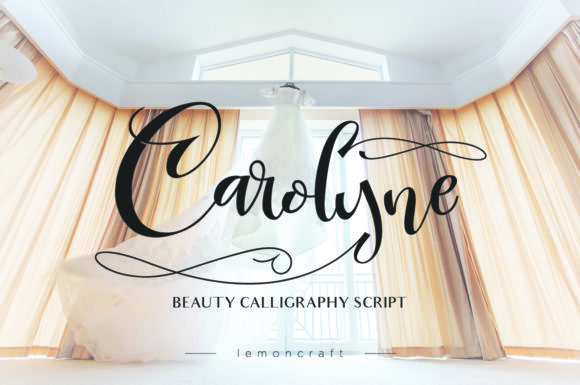
Discover the Elegance of Carolyne Font: A Smooth Handwritten Script for Your Designs
Are you a designer or crafter looking for a font that exudes elegance and femininity? Look no further than the Carolyne Font. This beautiful, smooth handwritten script is perfect for adding a touch of sophistication to your designs, whether you’re working on bridal and wedding projects, creating name cards, or crafting invitations.
The Characteristics of Carolyne Font
The Carolyne Font is a stunning example of a handwritten script font. Its smooth, flowing lines and elegant letterforms make it an ideal choice for designs that require a high level of sophistication. The font’s feminine style is perfect for projects that need a touch of whimsy and romance, such as wedding invitations, bridal shower decorations, and other celebratory designs.
Uses for Carolyne Font
The versatility of the Carolyne Font makes it suitable for a wide range of design projects. Here are just a few ideas to get you started:
- Bridal and Wedding Designs: Use the Carolyne Font to create beautiful wedding invitations, save-the-date cards, and other stationery for the big day.
- Name Cards: Add a touch of elegance to your name cards with the Carolyne Font, perfect for events, conferences, and networking meetings.
- Invitations: Whether you’re planning a birthday party, baby shower, or other celebration, the Carolyne Font is a great choice for creating eye-catching invitations.
- Digital and Print Designs: The Carolyne Font can be used for both digital and print designs, including social media graphics, blog headers, and marketing materials.
Why Choose Carolyne Font?
So why should you choose the Carolyne Font for your designs? Here are just a few reasons:
- Elegant and Feminine: The Carolyne Font has a distinctly feminine style that adds a touch of elegance to any design.
- Smooth and Legible: The font’s smooth lines and clear letterforms make it easy to read, even at smaller sizes.
- Versatile: The Carolyne Font can be used for a wide range of design projects, from digital graphics to print materials.
- Easy to Pair: The font pairs well with a variety of other fonts and design elements, making it easy to incorporate into your existing design style.
Tips for Using Carolyne Font
To get the most out of the Carolyne Font, here are a few tips to keep in mind:
- Use it Sparingly: While the Carolyne Font is beautiful, it can be overpowering if used too much. Use it sparingly to add a touch of elegance to your designs.
- Pair it with Bold Fonts: Pairing the Carolyne Font with bold, sans-serif fonts can create a striking contrast that adds visual interest to your designs.
- Experiment with Colors: The Carolyne Font looks beautiful in a variety of colors, from soft pastels to rich jewel tones. Experiment with different colors to find the perfect fit for your design.
| Font Name | Carolyne Font |
| Author | lemoncraft |
The Carolyne Font is a beautiful, elegant handwritten script that is perfect for designers and crafters looking to add a touch of sophistication to their designs. With its smooth lines, feminine style, and versatility, it’s an ideal choice for a wide range of projects, from bridal and wedding designs to name cards and invitations. Whether you’re a seasoned designer or just starting out, the Carolyne Font is sure to become a favorite in your design toolkit.